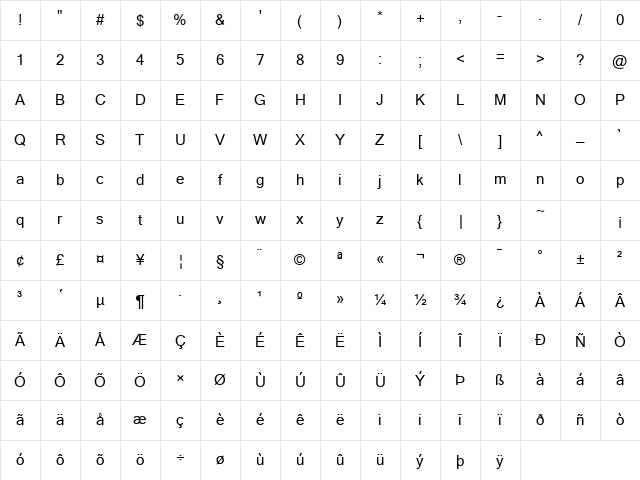
Kartika Regular
Designer: Raghunath Joshi (Type Director), Vikram Gaikwad
Complete Kartika Regular glyph index. Displaying only characters natively supported by Kartika Regular font.
Design Context for Kartika
Kartika is a composed and adaptable typeface that performs quietly and consistently across a wide range of design contexts.